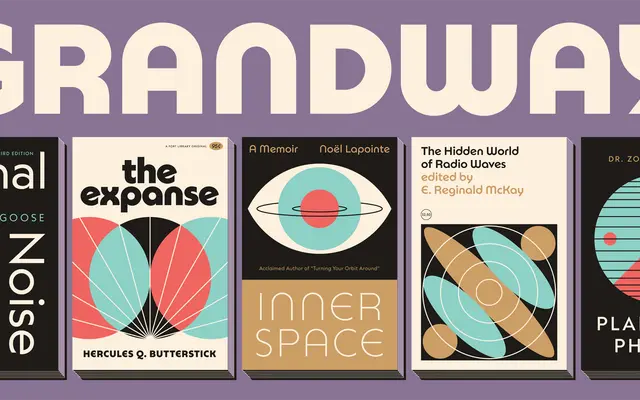
Grandway
Fort Foundry · Seth Nickerson, Mattox Shuler
A dual-family geometric sans by Seth Nickerson, originally drawn for an ice cream trailer and grown into a 32-style collection pairing a practical text family with a Bauhaus-inspired display counterpart.
Grandway splits across two complementary subfamilies: a workhorse geometric sans and Grandway Display, which leans into rounded, tubular forms and Bauhaus-inflected construction. Both share the same DNA but diverge in personality, with the Display variant offering stylistic alternates that can shift the tone considerably. Eight weights from Thin to Black, each with matching italics, give the collection a combined 32 styles and 601 characters across broad Latin language support.
A geometric sans with Bauhaus-influenced construction, split across a text-oriented and a display-oriented subfamily. Rounded, tubular forms in the Display variant push it towards decorative geometric territory.